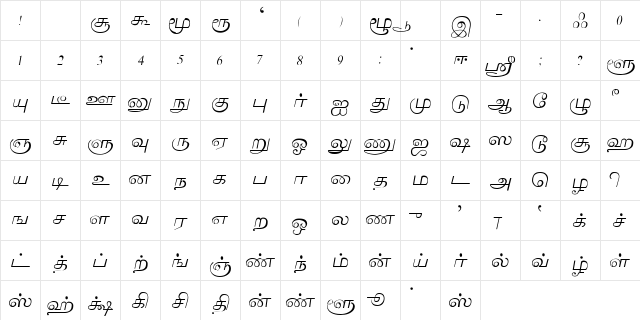
Lakshmi Regular
Design Context for Lakshmi Typeface
Lakshmi takes a measured approach to typography — its balanced proportions and neutral character make it a reliable workhorse for both digital and print work.